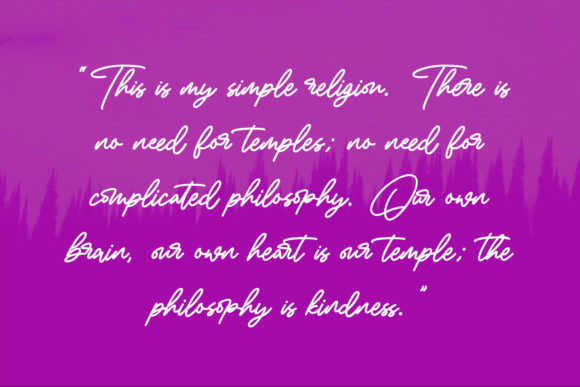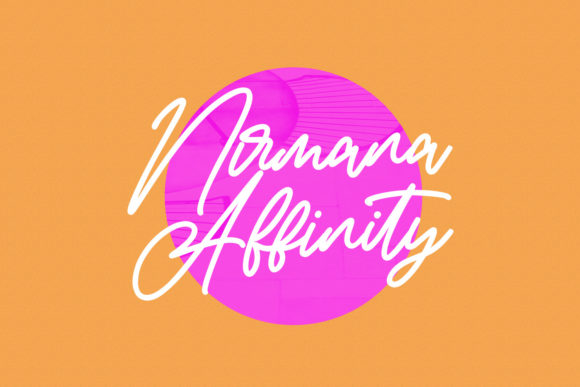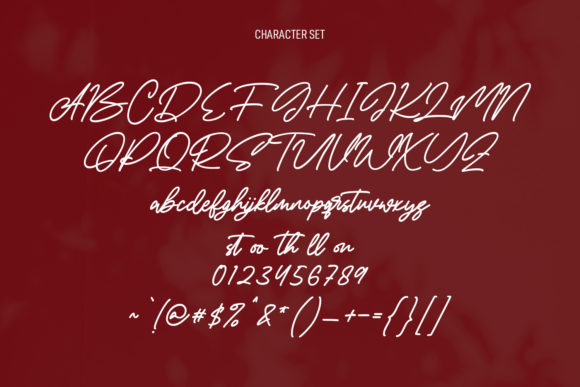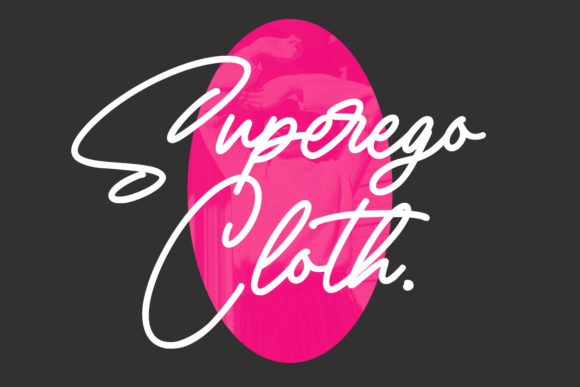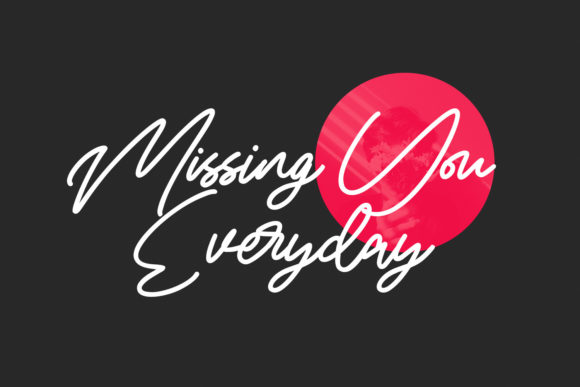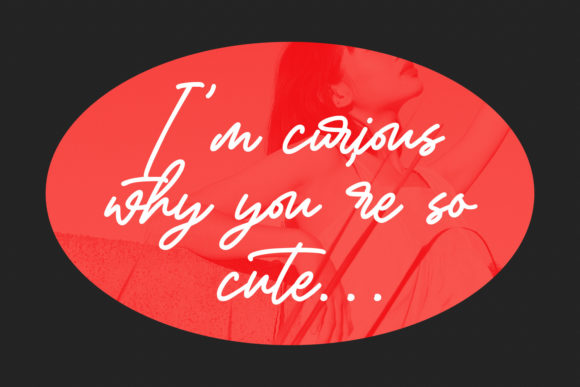
The Perfect Script Font for Your Next Creative Project
You’ve spent hours staring at a blank canvas, trying to find the perfect font to bring your design to life. The words swirl in your mind, and your cursor blinks impatiently as you search for that elusive inspiration. Suddenly, it hits you – a beautiful, vintage styled script font that captures the essence of your vision.
Meet the Brominates Signature Font, a stunning script font designed to add a touch of elegance to your fashion branding or editorial designs. With its smooth curves and classic feel, this font is the perfect addition to any project. Whether you’re a seasoned designer or just starting out, the Brominates Signature Font is sure to impress.
Add this versatile font to your arsenal and watch your designs come to life. The Brominates Signature Font is a valuable tool for designers looking to create beautiful, high-end designs that stand out from the crowd.
Brominates Signature Font Key Features
- Font Family: A unique, modern script font designed for signatures and personal documents.
- Size: The font comes in a single weight, ideal for creating a consistent and polished look for signatures.
- Unique Characteristics: The font features a flowing, cursive design with subtle flourishes, perfect for adding a personal touch to signatures and documents.
- Character Set: Includes a wide range of characters, including uppercase and lowercase letters, numbers, and punctuation marks, making it suitable for everyday use.
Brominates Signature Font Review
Overall, I’d say Brominates Signature Font has some great qualities that make it a solid choice for designers looking for a unique and elegant font. ✨ Here are some of the things that stand out:
- Beautiful, cursive script with a high-end feel
- Wide range of styles and weights to choose from, making it versatile for different design projects
- Includes alternate characters and ligatures to add extra flair
However, there are some limitations to consider. ⚠️ For example:
- Lack of support for some special characters, which may be a problem for international designs
- Some styles may not display consistently across different platforms and devices
- Could be more optimized for use in digital media, where legibility is crucial
Overall, I think Brominates Signature Font is a great choice for designers who want to add a touch of sophistication to their projects. While it may not be perfect, it’s definitely worth considering for the right design. With a bit of caution and careful planning, you can get the most out of this beautiful font.
Getting the Most Out of Brominates Signature Font
To get the most out of Brominates Signature Font, use it to create bold and eye-catching headlines, or to add a touch of sophistication to your text. Experiment with different font sizes and colors to create visual interest.
Brominates Signature Font is commonly used for:
– Business cards and letterheads
– Marketing materials and brochures
– Personal branding and signature styles
Alternatives to Brominates Signature Font
Bodoni Poster
Bodoni Poster is a classic serif font that is ideal for use in headings, titles, and posters. It has a strong, elegant appearance that is reminiscent of traditional printing. When to use: For formal or high-end projects where a touch of sophistication is desired. Compared to Brominates Signature Font, Bodoni Poster has a more traditional feel and is better suited for larger font sizes.
Playfair Display is an elegant script font that is perfect for use in titles, headings, and other display text. It has a luxurious, high-end appearance that is sure to impress. When to use: For high-end projects, such as luxury branding or special events. Compared to Brominates Signature Font, Playfair Display has a more refined, sophisticated feel and is better suited for formal or high-end projects.
Does Brominates Signature Font support Unicode characters?
Yes, Brominates Signature Font supports a wide range of Unicode characters, including Latin, Greek, Cyrillic, and more. This allows designers to use the font in languages other than English and to access a wide range of special characters and symbols.